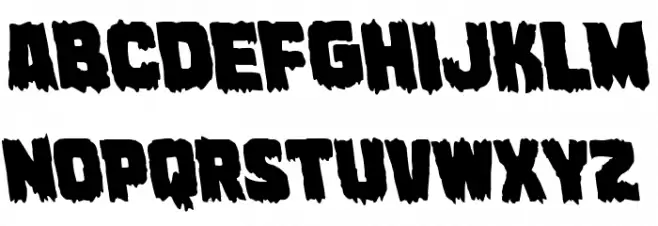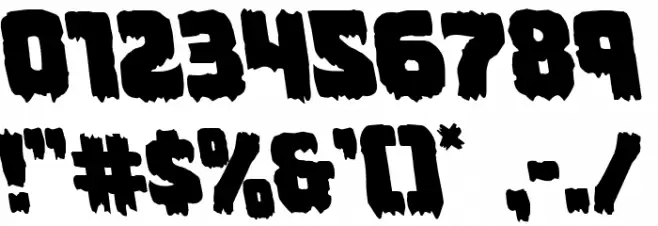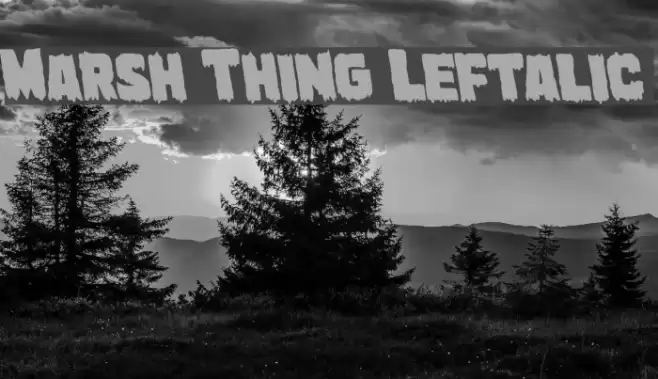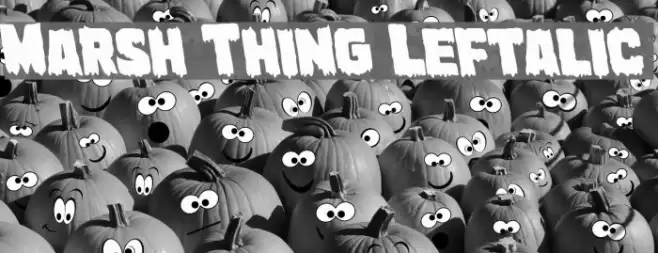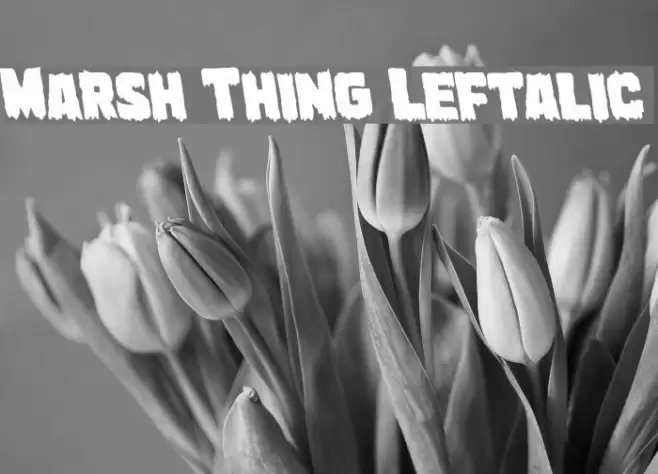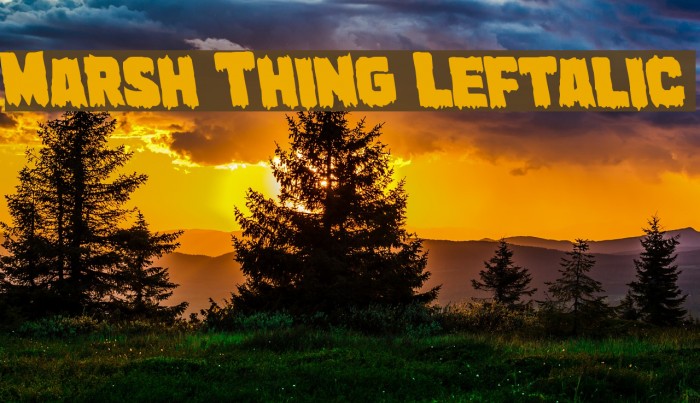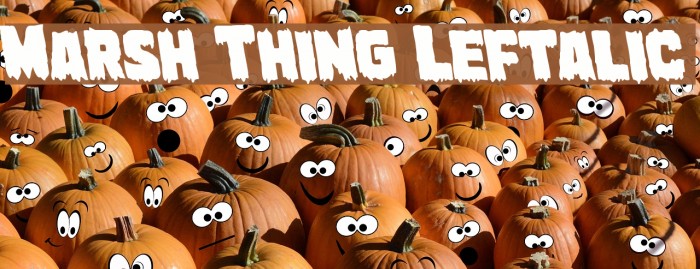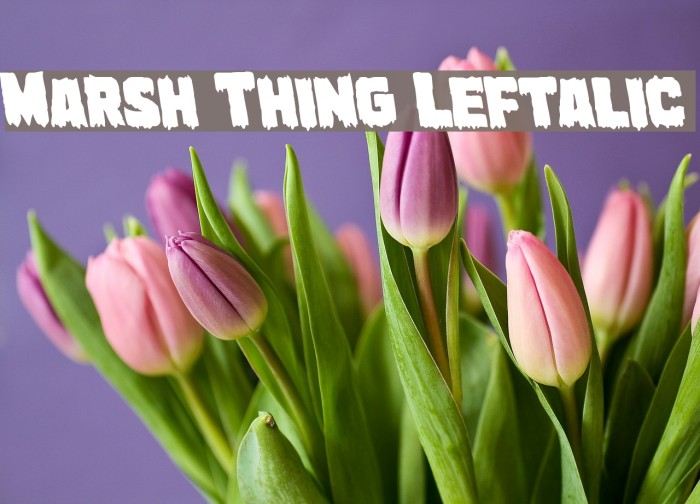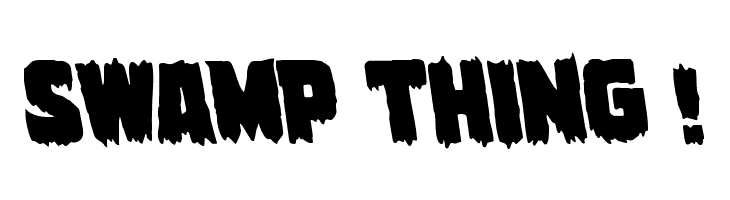
Marsh Thing Leftalic
This font features a bold and rugged design, with each character appearing as if it has been carved or eroded, giving it a distinctly organic and wild appearance. The edges are irregular and jagged, contributing to a sense of movement and energy. The style is reminiscent of horror or adventure themes, making it ideal for projects that require a dramatic and eye-catching typeface. The characters are closely spaced, enhancing the dense and compact look of the text. This font is particularly suited for creative and thematic designs where a strong visual impact is desired.
A bold, rugged font with jagged edges and an organic, adventurous style.
- Proposed Projects: Ideal for horror-themed posters, adventure book covers, Halloween event flyers, and video game titles.
- Character Spacing: Tight
- Overall Style: Decorative